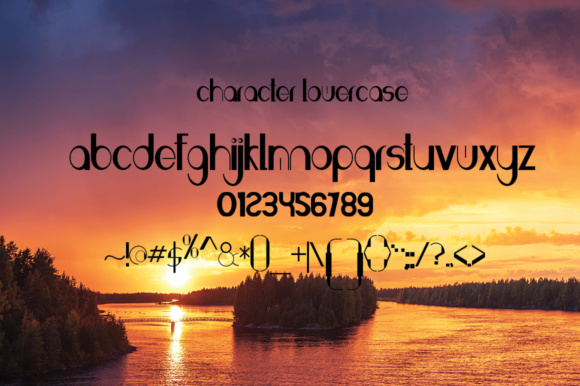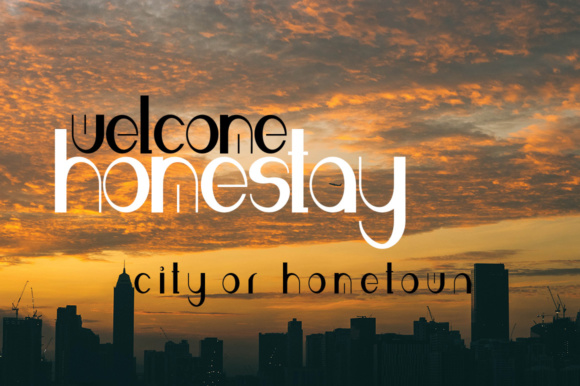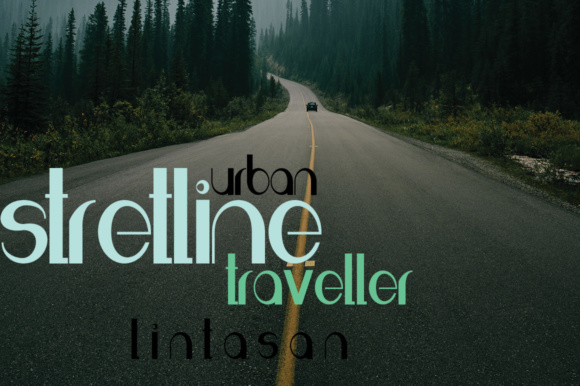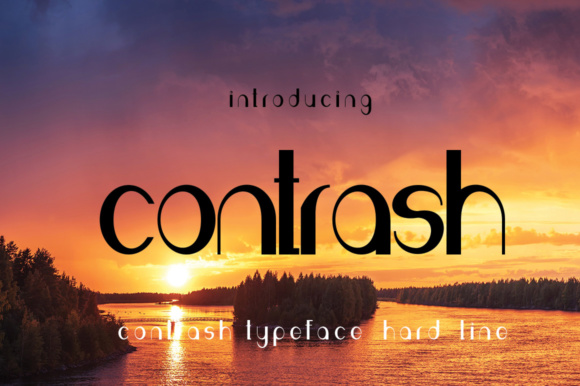
Discover the Retro Charm of Contrash Font: A Sans Serif for Modern Design
In the world of typography, fonts play a crucial role in conveying the tone and aesthetic of a design. For designers and crafters looking for a unique and nostalgic touch, Contrash font is an excellent choice. This retro-looking sans serif font has gained popularity for its distinctive style, versatility, and ability to evoke a sense of nostalgia. In this article, we’ll explore the features, uses, and benefits of Contrash font, and why it’s a great addition to your design toolkit.
What is Contrash Font?
Contrash is a sans serif font that draws inspiration from retro typography. Its clean lines, geometric shapes, and classic proportions make it a perfect blend of old-school charm and modern simplicity. The font’s design is characterized by its slightly condensed letterforms, which give it a distinctive look that’s both nostalgic and contemporary.
Key Features of Contrash Font
- Retro aesthetic: Contrash font boasts a unique retro look that’s reminiscent of vintage posters, signs, and advertisements.
- Sans serif design: The font’s sans serif design makes it highly legible, even at small sizes, and perfect for use in digital and print materials.
- Geometric shapes: Contrash font features geometric shapes, such as circles, squares, and triangles, which add to its retro charm.
- Condensed letterforms: The font’s slightly condensed letterforms give it a distinctive look that’s both stylish and space-efficient.
- Versatile: Contrash font is suitable for a wide range of design applications, from logos and branding to posters, flyers, and digital media.
Uses of Contrash Font
Contrash font is an excellent choice for designers and crafters looking to add a touch of nostalgia to their work. Here are some popular uses of Contrash font:
- Logo design: Contrash font is perfect for creating logos that require a unique and memorable look.
- Branding: The font’s retro aesthetic makes it an excellent choice for branding projects that require a distinctive and recognizable identity.
- Posters and flyers: Contrash font is well-suited for creating eye-catching posters and flyers that require a bold and attention-grabbing look.
- Digital media: The font’s clean lines and geometric shapes make it an excellent choice for digital media, such as social media graphics, website headers, and email newsletters.
Benefits of Using Contrash Font
Contrash font offers several benefits for designers and crafters, including:
- Unique look: Contrash font’s retro aesthetic sets it apart from other fonts, making it an excellent choice for designers looking to create distinctive designs.
- Versatility: The font’s versatility makes it suitable for a wide range of design applications.
- Legibility: Contrash font’s sans serif design and clean lines make it highly legible, even at small sizes.
- Easy to use: The font is easy to use and pairs well with other fonts, making it a great addition to your design toolkit.
Contrash font is a unique and versatile sans serif font that’s perfect for designers and crafters looking to add a touch of nostalgia to their work. Its retro aesthetic, geometric shapes, and condensed letterforms make it an excellent choice for a wide range of design applications. With its legibility, versatility, and ease of use, Contrash font is a great addition to your design toolkit. So, if you’re looking for a font that will give your designs a distinctive and memorable look, consider giving Contrash font a try.